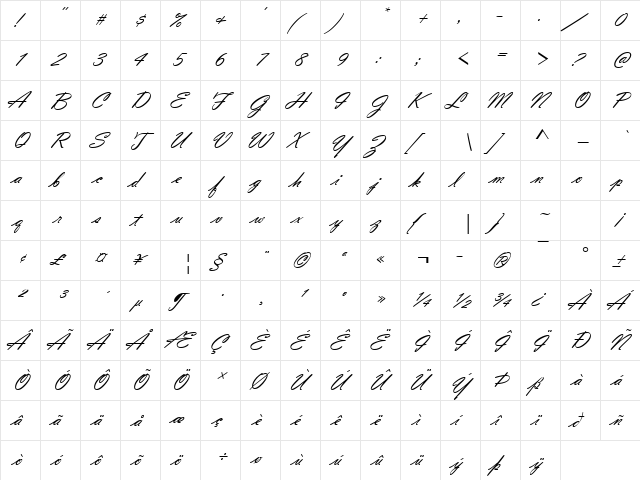
Vladimir Script Regular
Design Context for Vladimir Script Typeface
Vladimir Script brings a calligraphic fluidity to the page — its connecting strokes and expressive curves give it an unmistakably human quality.
Font Pairing: Combine Vladimir Script with a simple geometric sans for maximum contrast — the tension between flowing curves and clean structure is a classic typographic pairing.
Pro Tip: Pair Vladimir Script with a clean sans-serif for supporting text. The contrast between fluid script and geometric structure creates an elegant typographic hierarchy.